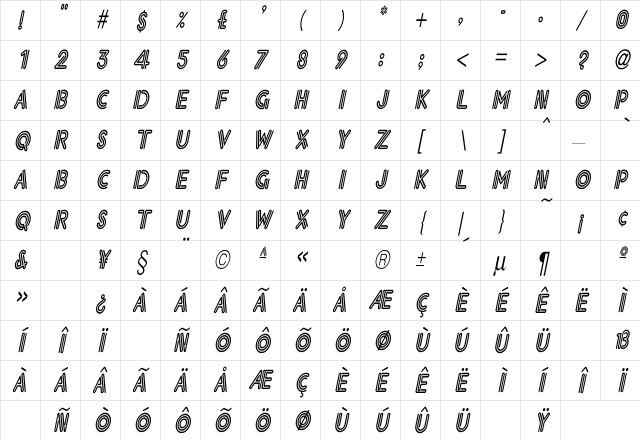
Complete Eklektic-Normal Cn IT Italic glyph index. Displaying only characters natively supported by Eklektic-Normal Cn IT Italic font.
Eklektic-Normal Cn IT is a composed and adaptable typeface that performs quietly and consistently across a wide range of design contexts. The slanted form adds forward momentum and visual energy.